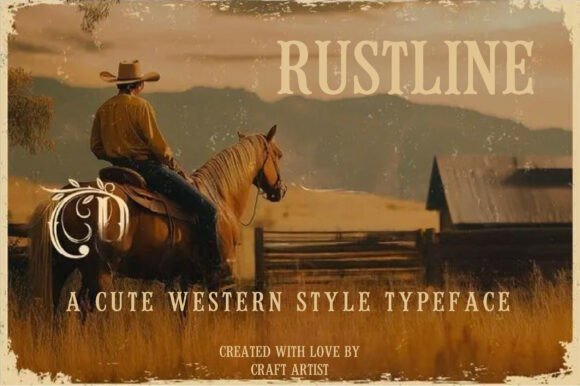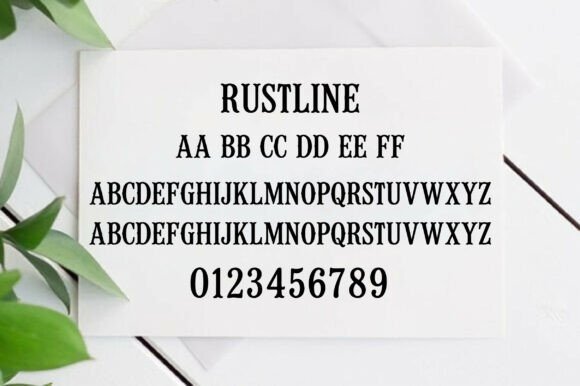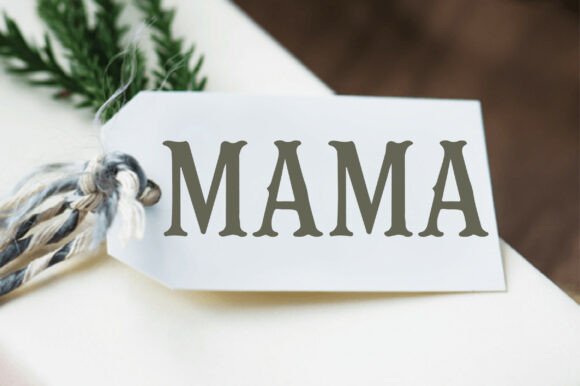
Introduction to Rustline Font
Rustline is a bold and rugged vintage slab serif font inspired by old western posters and classic print styles.
Its strong, timeless letters bring a nostalgic charm that fits perfectly for logos, branding, apparel, and signage Whether youโre designing a retro badge, whiskey label, or rustic headline, Rustline adds bold character and vintage warmth to your project.
Key Features of Rustline Font
Why Choose Rustline Font?